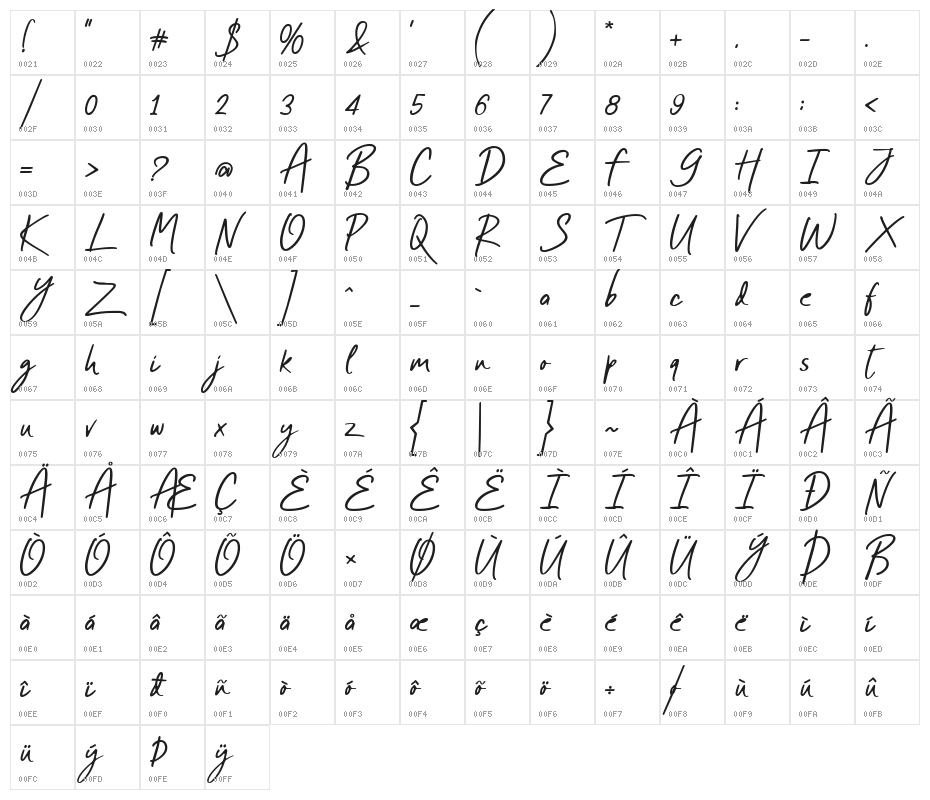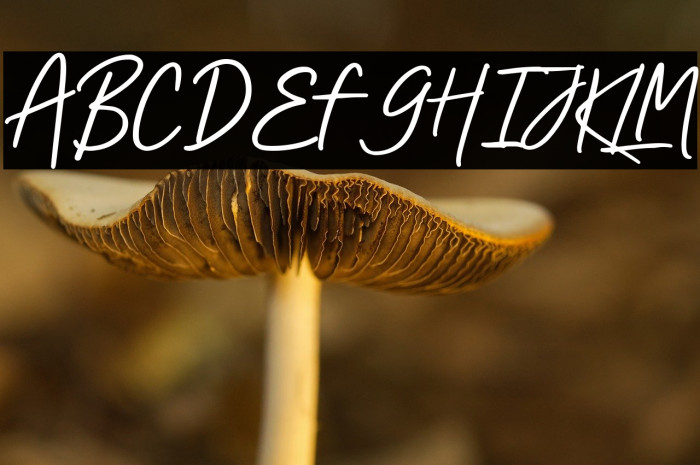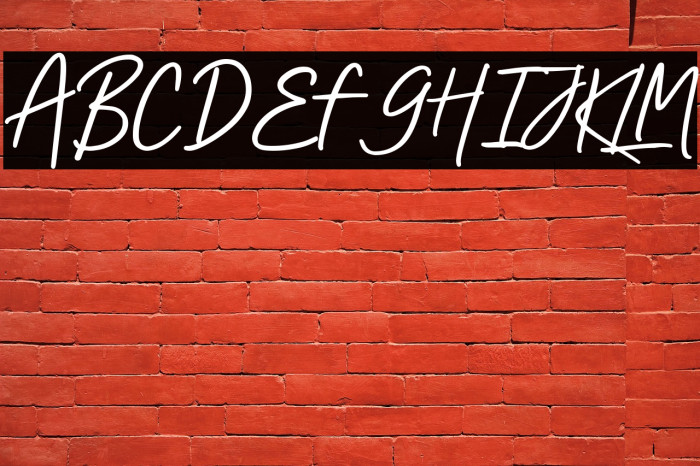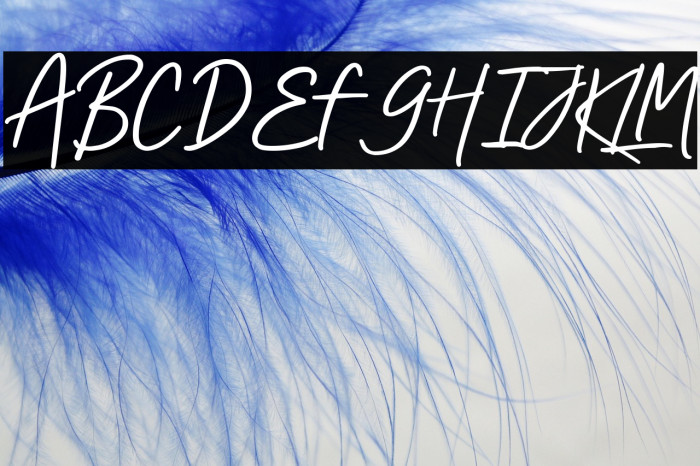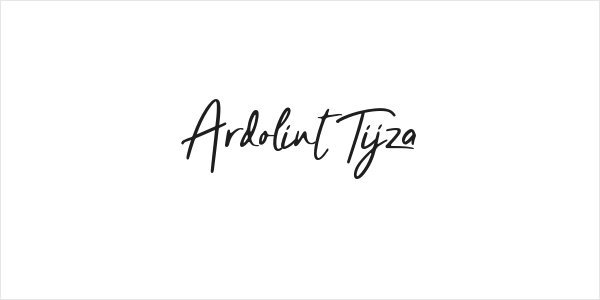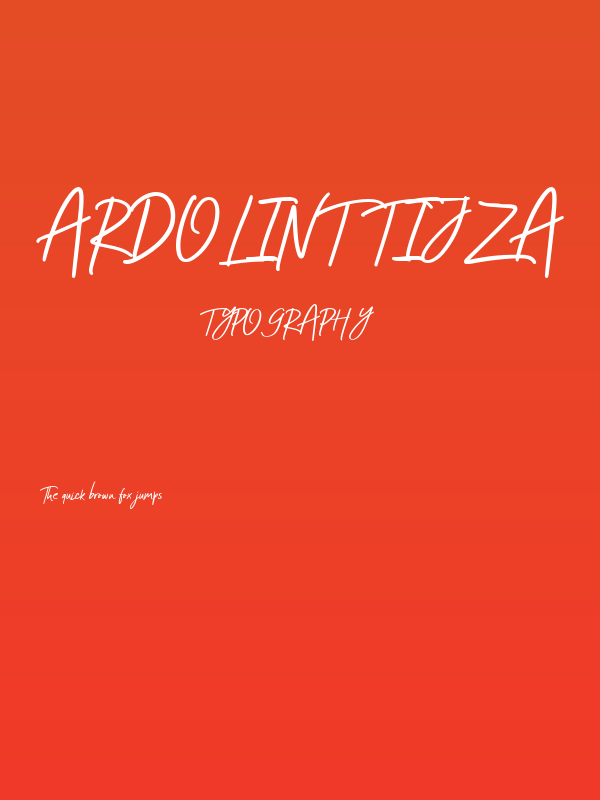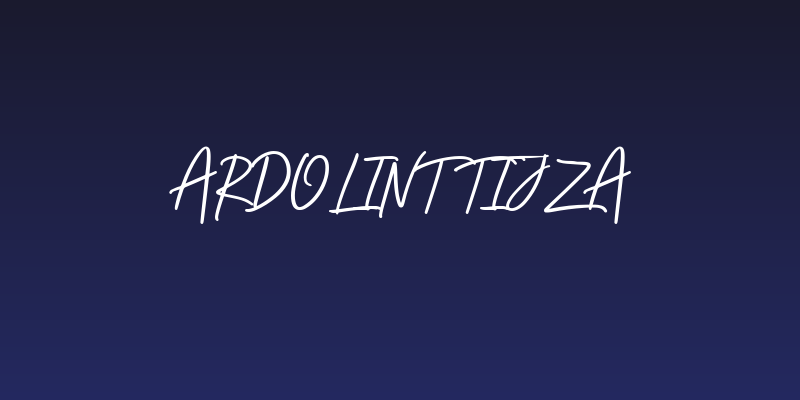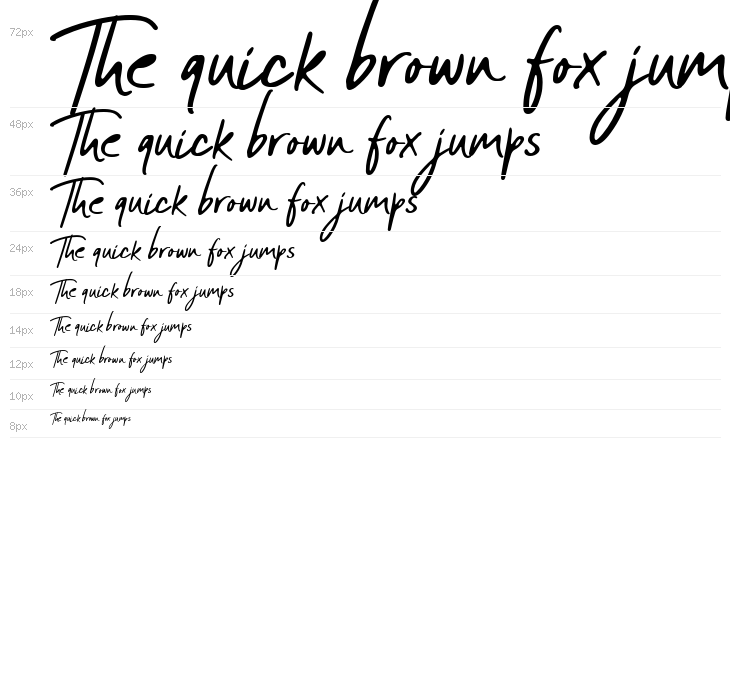
Ardolint Tijza Font
Ardolint Tijza Description
A casual, handwritten script font with a flowing and dynamic style, featuring smooth curves and a natural, informal appearance.
| Overall Style | Casual, Informal |
| Use Case | Logos, Invitations, Personal notes |
| Proposed Projects | Greeting cards, personal branding, informal invitations. |